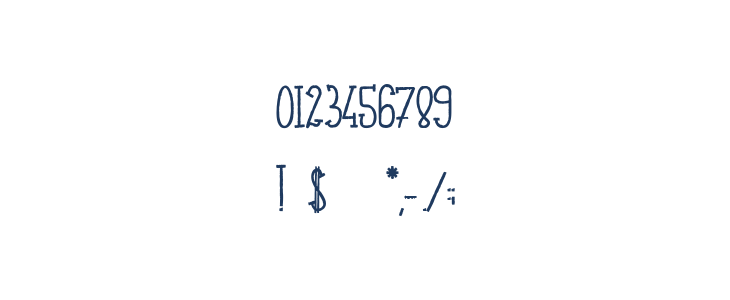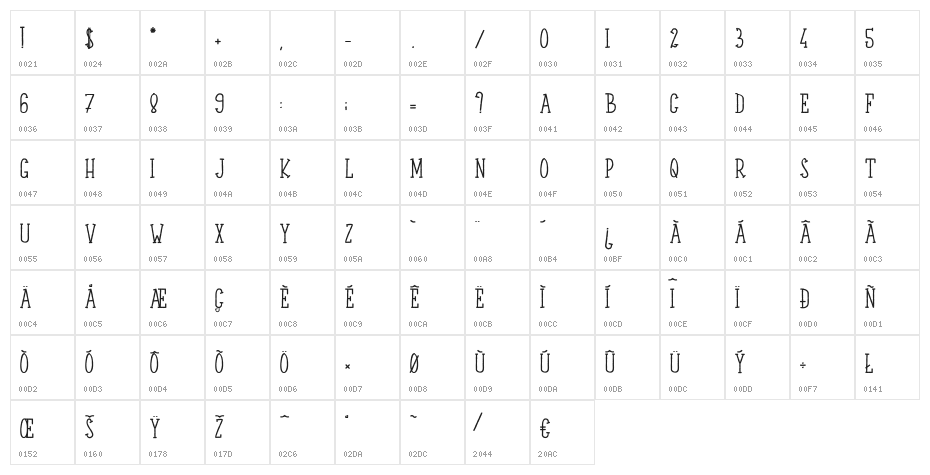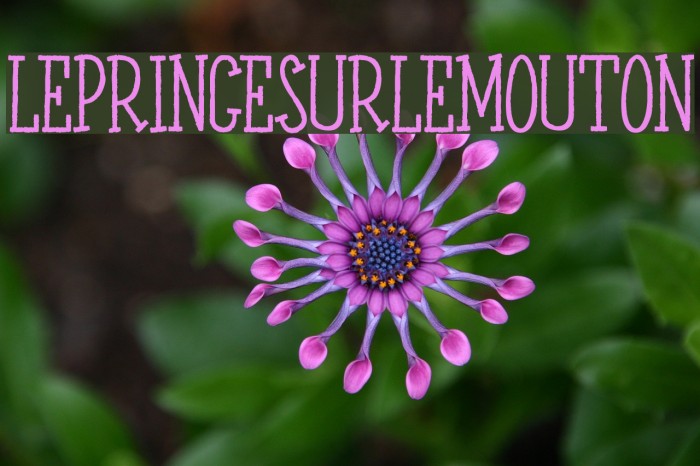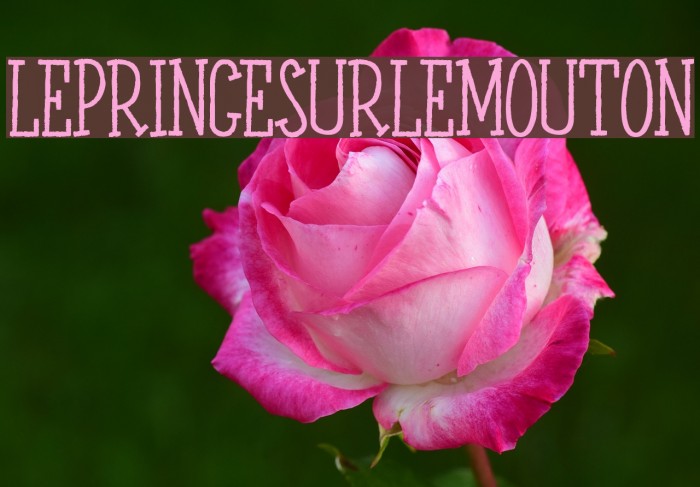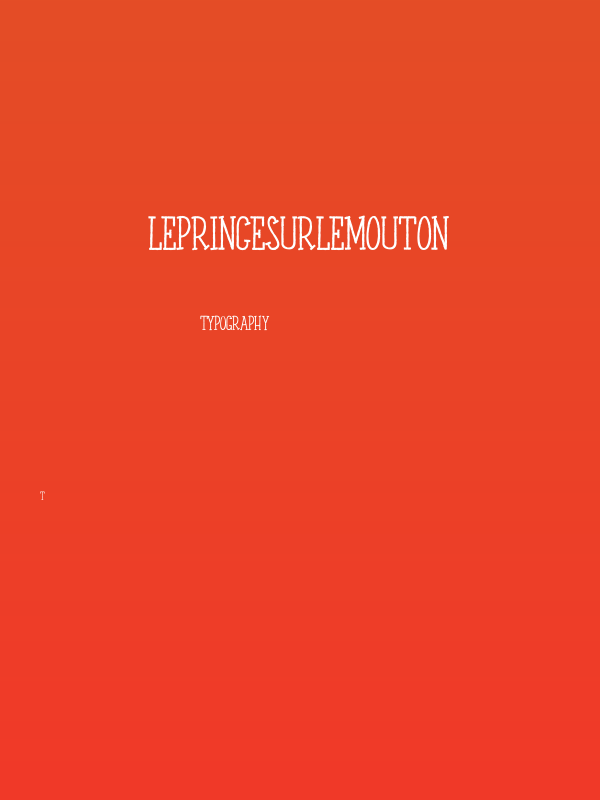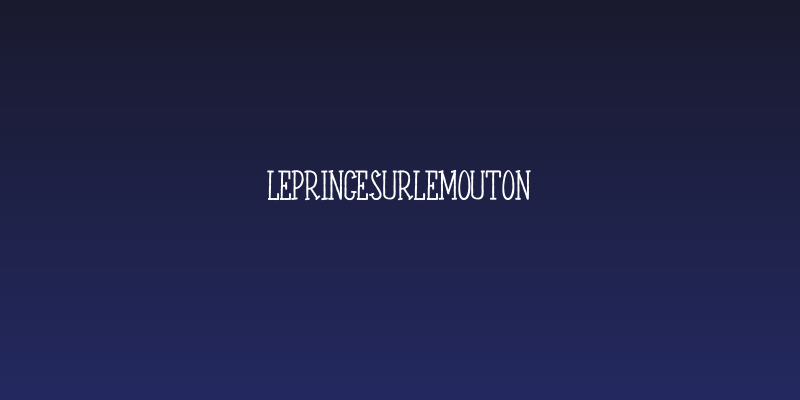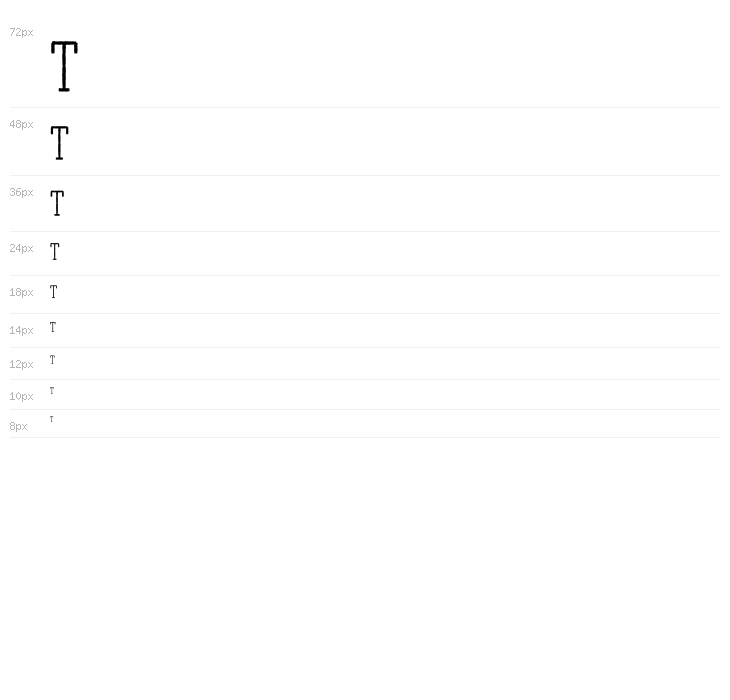
LEPRINCESURLEMOUTON Font
LEPRINCESURLEMOUTON Description
This font features a playful and whimsical style with a hand-drawn appearance. The uppercase letters are tall and slightly narrow, with uneven strokes that give a casual, artistic feel. The lowercase letters maintain the same playful character, with quirky curves and a slightly irregular baseline. Numbers and special characters follow the same design principles, adding to the font's cohesive look. The overall design suggests a sense of fun and creativity, making it suitable for projects that require a touch of personality and charm.
| Proposed Projects | Ideal for children's books, creative posters, playful branding, and artistic invitations. |